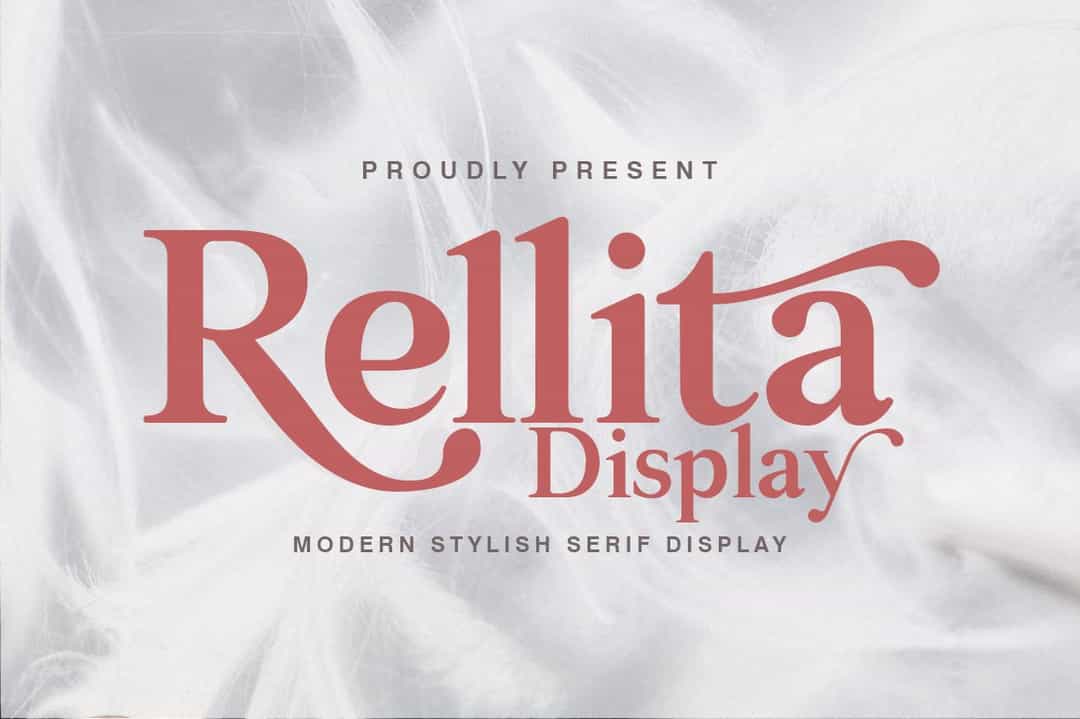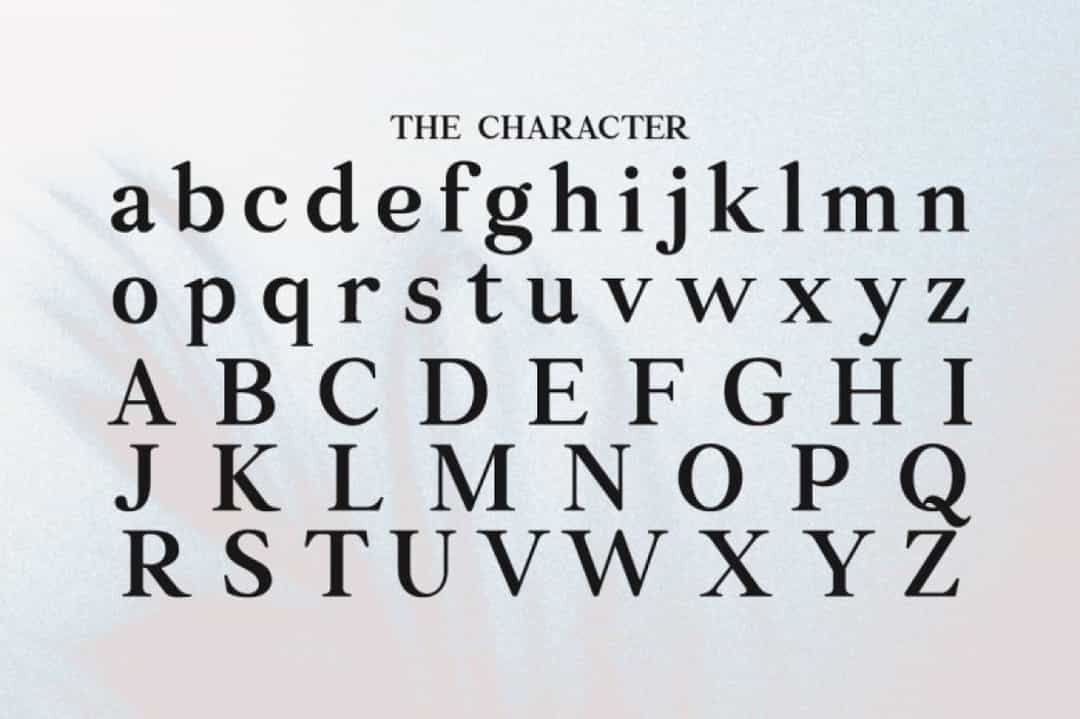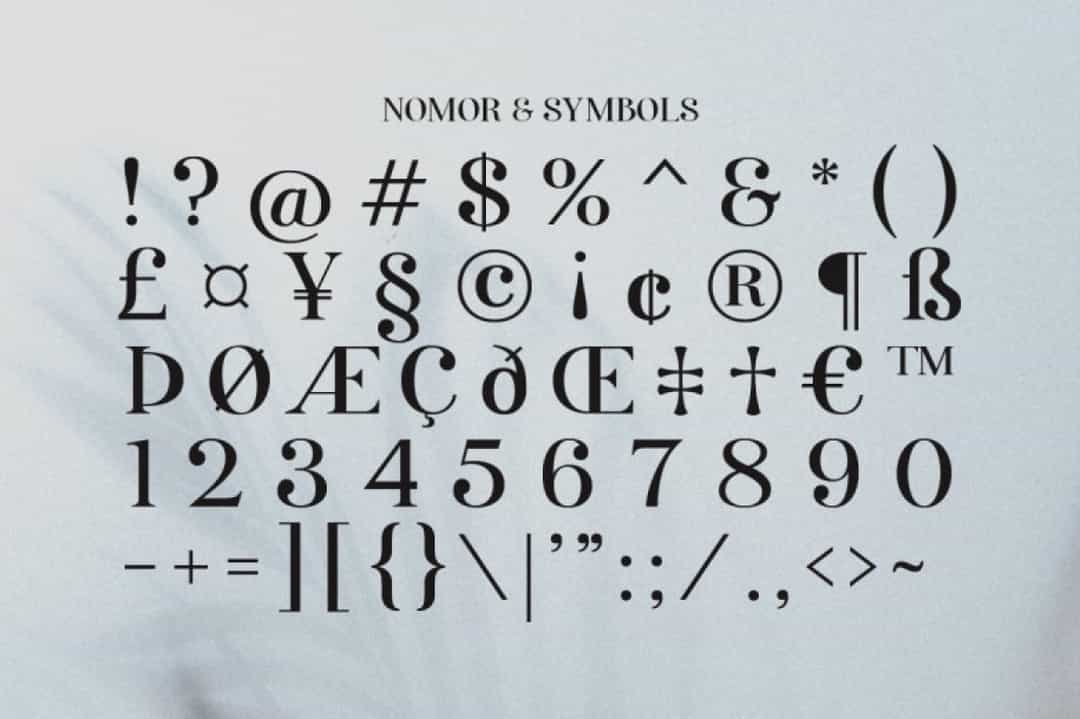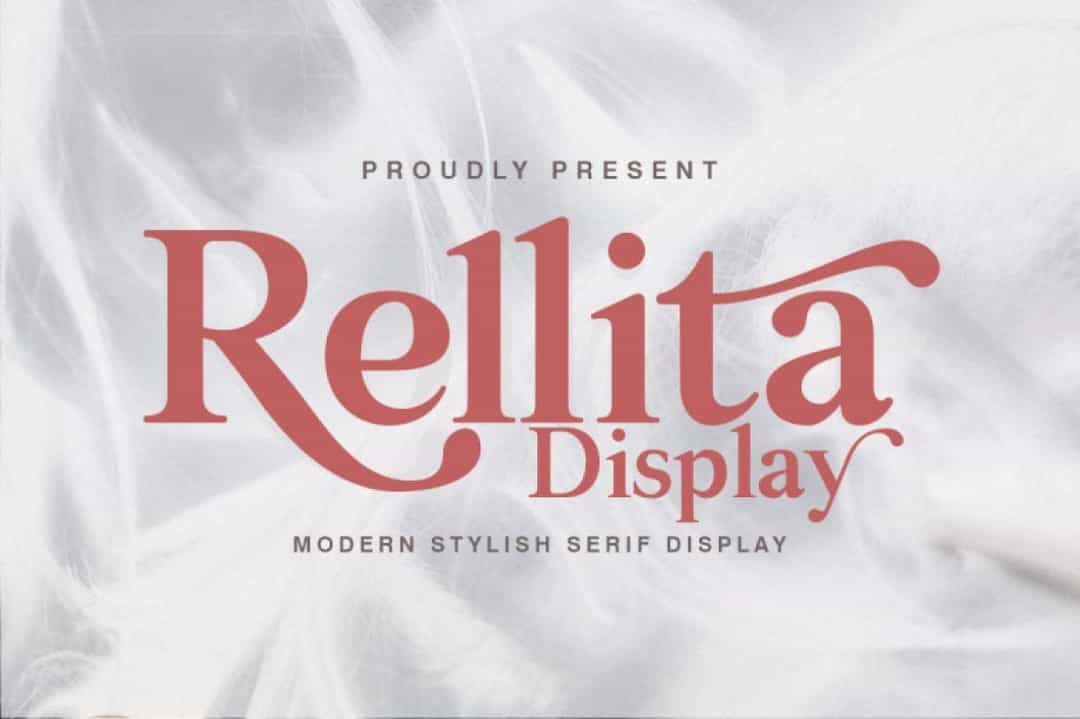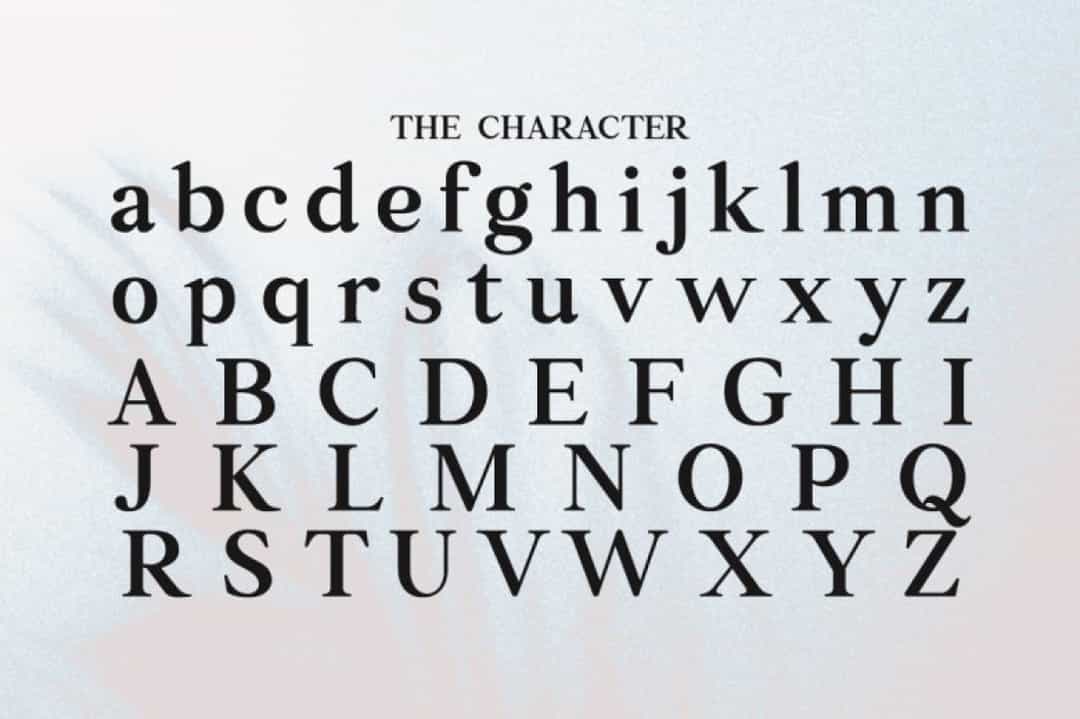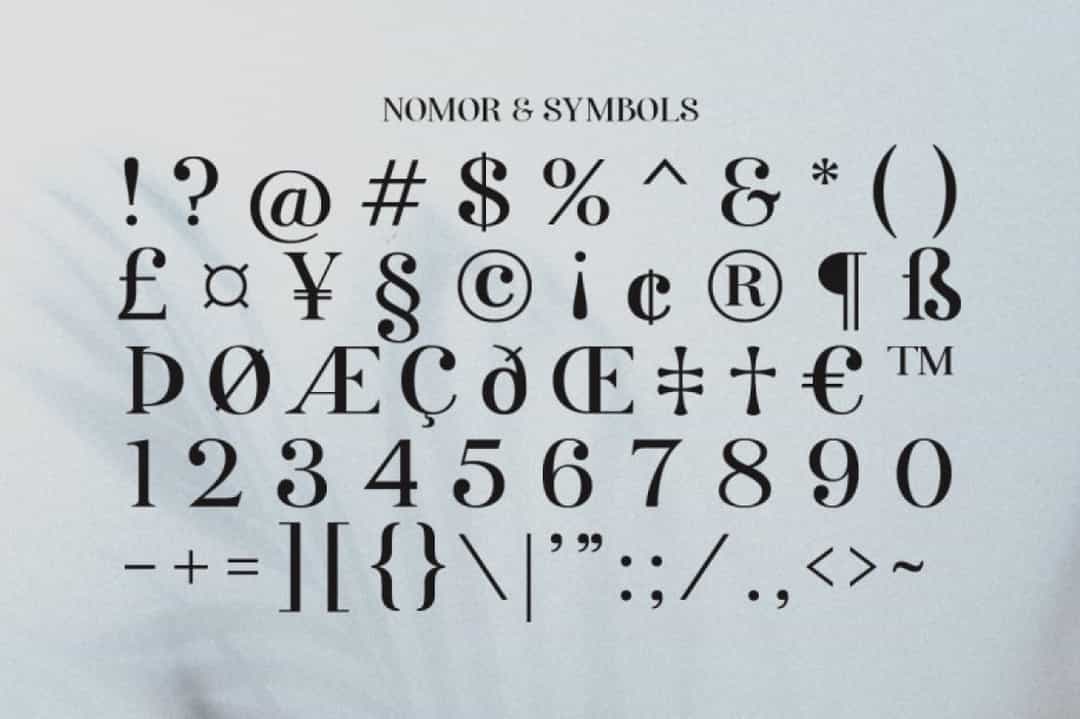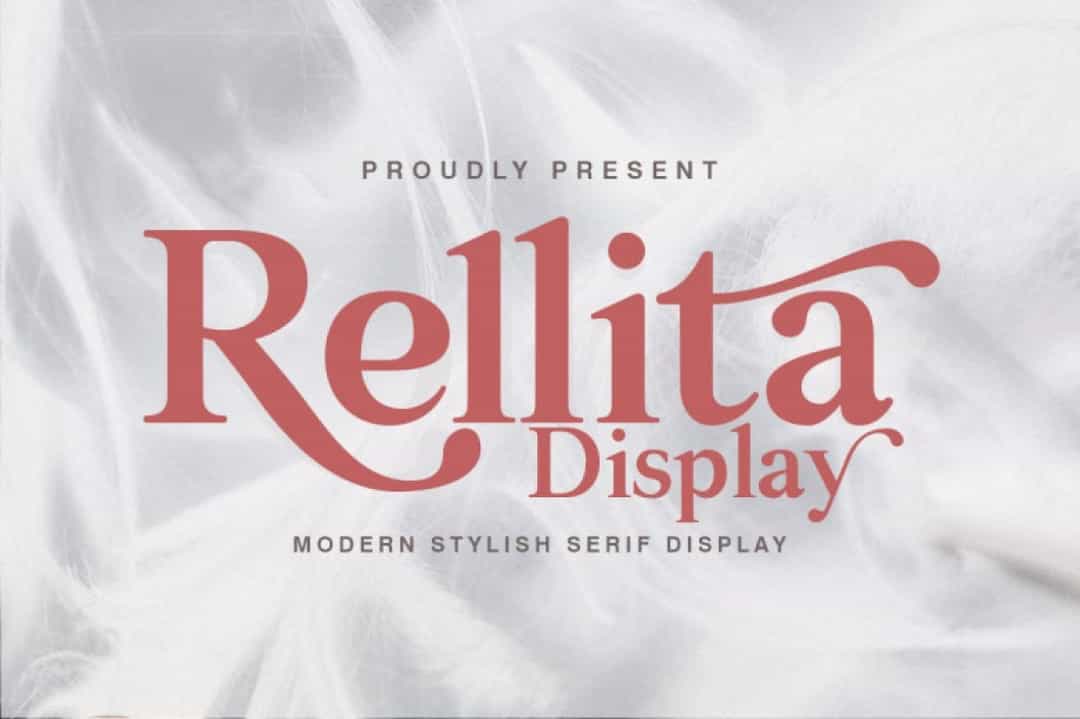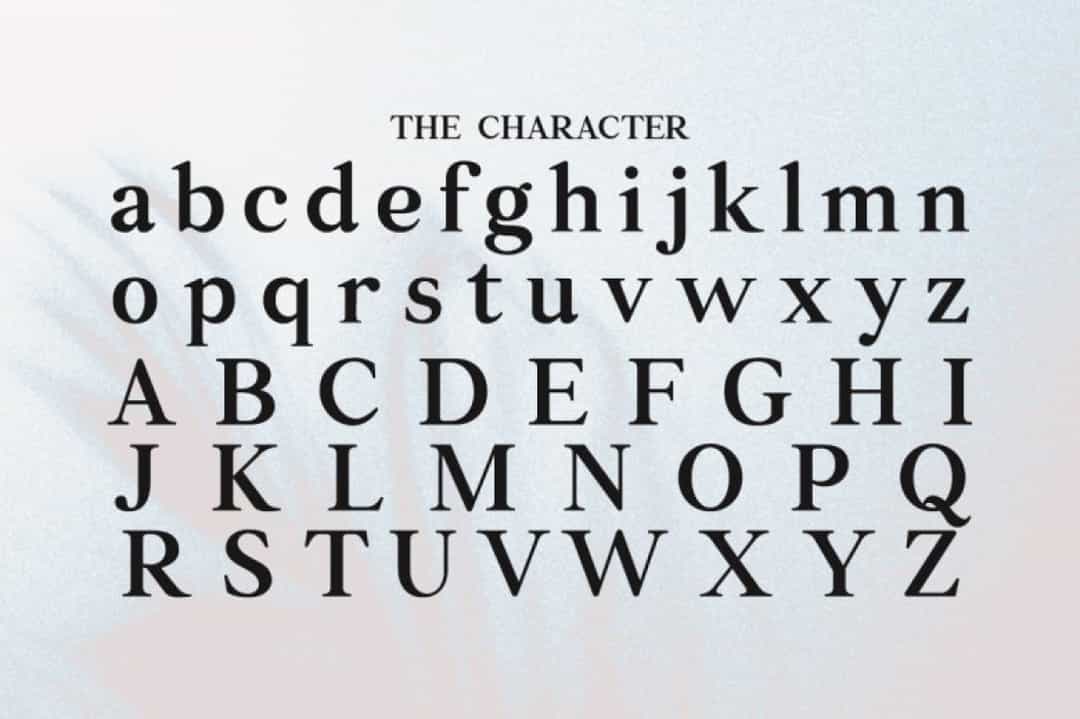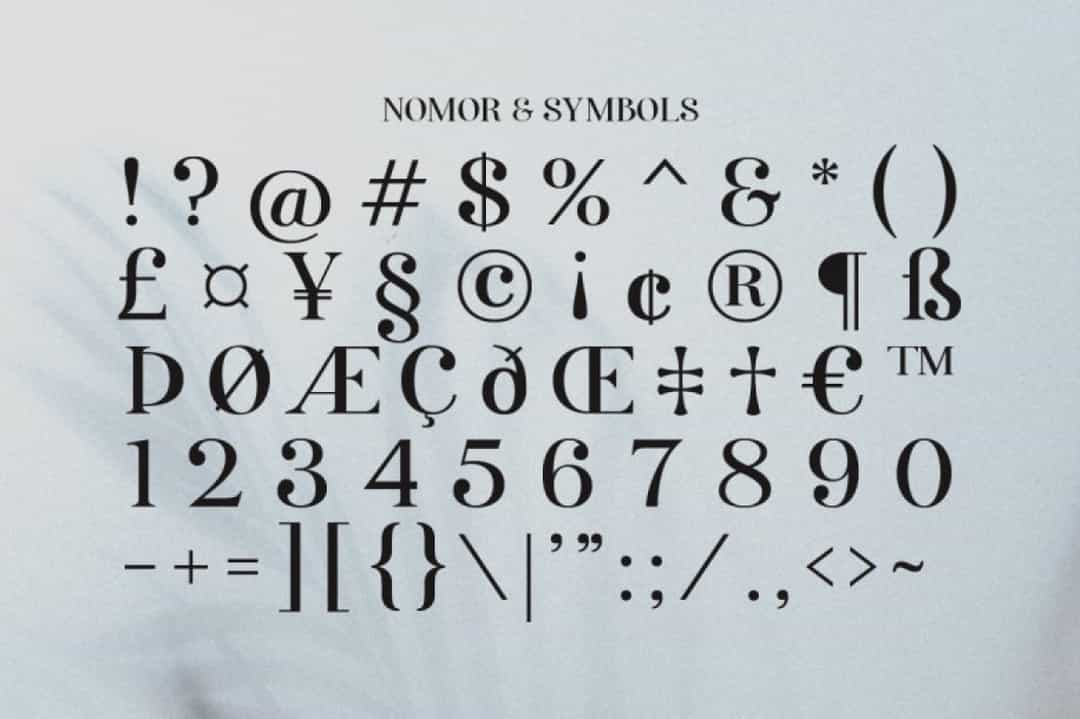
Rellita Display is an elegant, modern, contemporary serif typeface designed with a chic modern, stylish elegant, distinctive and elegant appearance. This font was specifically created to meet branding projects with luxury themes as well as magazines projects Social Media branding logos website headers or as text overlay on backgrounds pictures requiring luxurious accents.